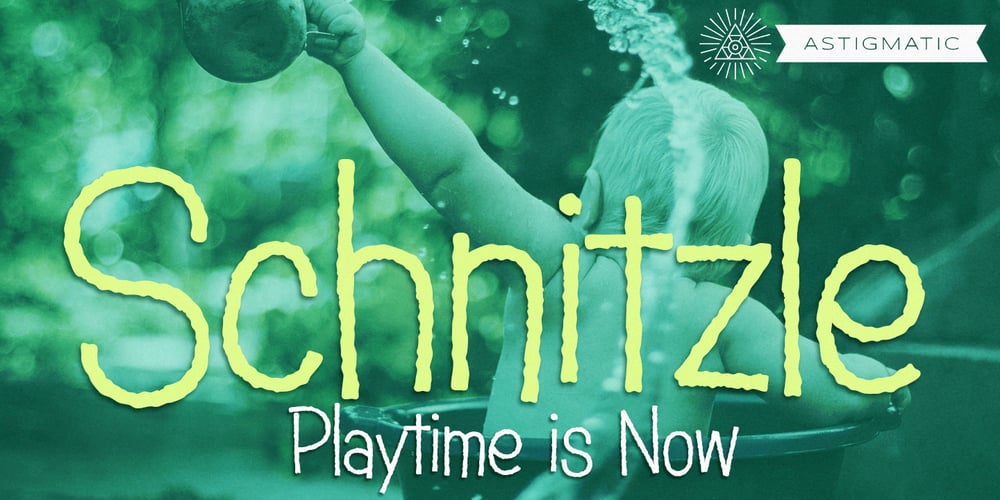
Schnitzle AOE Font Family was designed by Brian J. Bonislawsky and published by Astigmatic. Schnitzle AOE contains 2 styles and family package options. Inspired by lettering from a series of old detergent ads, Schnitzle is a stylish and playful typeface. Easy to read, fun to look at, a perfect typeface for childrens’ books, advertisements, and playful designs!